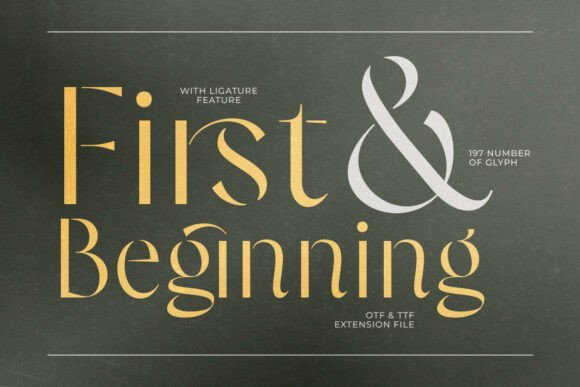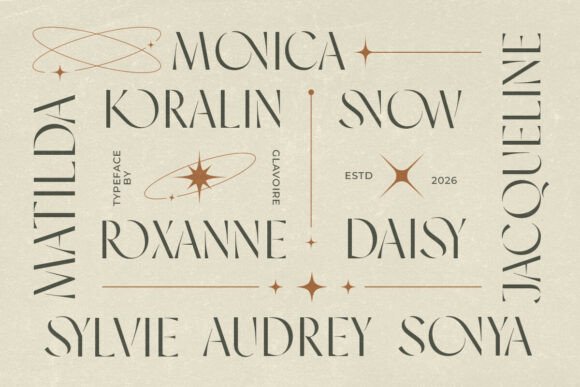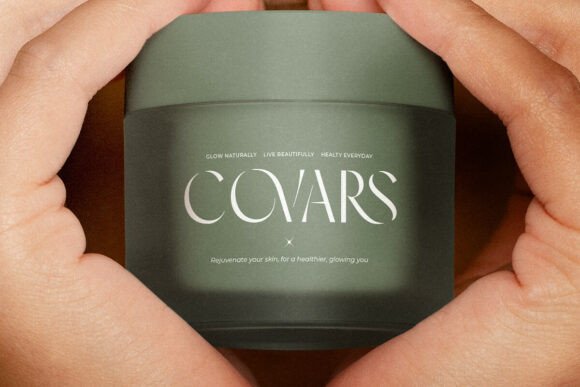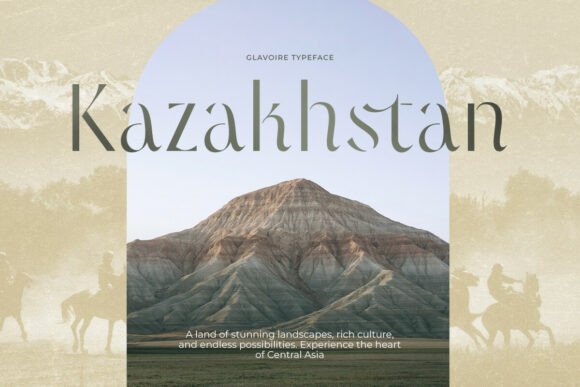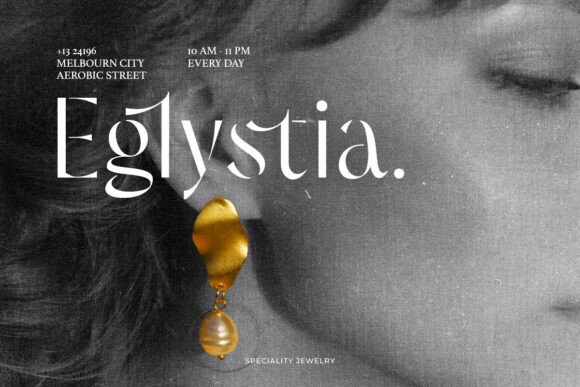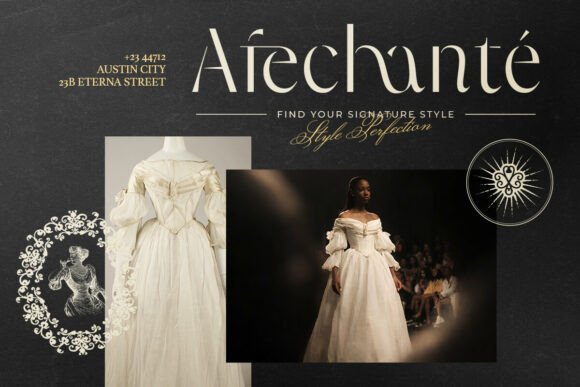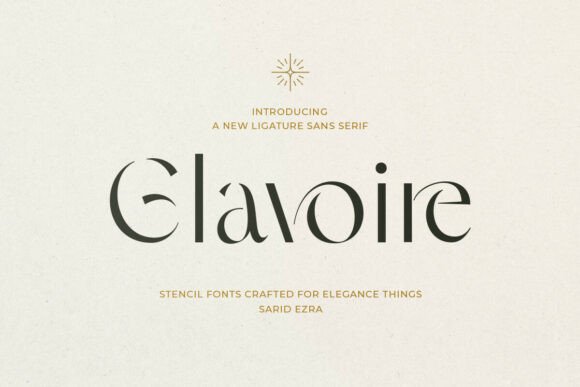
Redefine Sophistication with Glavoire Font: The Epitome of Modern Elegance
In the realm of typography, few fonts manage to strike a balance between modern simplicity and artistic flair. Glavoire Font, however, stands out as a beacon of sophistication, seamlessly blending the clean lines of a contemporary sans serif with the delicate charm of stencil cuts. This stunning ligature sans serif typeface is not just a font; it’s an experience, designed to elevate luxury branding, high-end editorial layouts, perfume packaging, and boutique signage to unprecedented heights of elegance.
The Essence of Glavoire: A Masterclass in Elegance
Glavoire is more than just a collection of letters; it’s a masterclass in modern elegance. Its unique, flowing ligatures and high-fashion aesthetic make it the perfect choice for designers and crafters aiming to infuse their projects with a touch of luxury. Each character is meticulously crafted, showcasing a rhythmic flow that turns every headline into a piece of high-contrast art. The strategic use of negative space further accentuates its sophisticated appeal, making Glavoire a font that commands attention while exuding refinement.
Unleashing Creativity with Glavoire’s Unique Features
One of the standout features of Glavoire is its ligatures. These flowing connections between letters not only enhance readability but also add an artistic touch to any text. The font’s design is characterized by its clean structure, reminiscent of modern sans serifs, yet it’s the delicate stencil cuts that truly set it apart. This blend of styles results in a font that’s both versatile and visually striking, capable of adapting to a wide range of design needs.
Applications of Glavoire: Where Elegance Meets Versatility
Glavoire’s applications are as diverse as they are luxurious. In luxury branding, it helps create a lasting impression, setting a brand apart with its unique aesthetic. For high-end editorial layouts, Glavoire brings a level of sophistication that’s hard to match, making every article or feature a visually engaging read. When it comes to perfume packaging, the font’s elegance shines through, perfectly capturing the essence of a luxury fragrance. Lastly, in boutique signage, Glavoire’s high-contrast artistry draws in passersby, turning signs into statements of style.
Why Designers and Crafters Love Glavoire
Designers and crafters gravitate towards Glavoire for several reasons. Firstly, its unique ligatures offer a creative outlet that’s hard to find in more traditional fonts. Secondly, its versatility means it can be used across various projects, from digital platforms to print materials. Lastly, Glavoire’s aesthetic embodies a high-fashion sensibility that’s perfect for those aiming to create visually stunning work. Whether it’s for a luxury brand looking to redefine its identity or a crafter seeking to add a touch of elegance to their projects, Glavoire is the go-to font.
Conclusion: Elevate Your Designs with Glavoire
In conclusion, Glavoire Font is a game-changer for anyone looking to infuse their designs with sophistication and elegance. Its unique blend of modern sans serif and delicate stencil cuts, combined with its flowing ligatures and high-fashion aesthetic, make it the premier choice for luxury projects. Whether you’re a designer working on a high-end brand or a crafter looking to elevate your work, Glavoire offers the perfect blend of style, versatility, and artistic flair. Redefine sophistication with Glavoire and turn every project into a masterpiece of modern elegance.